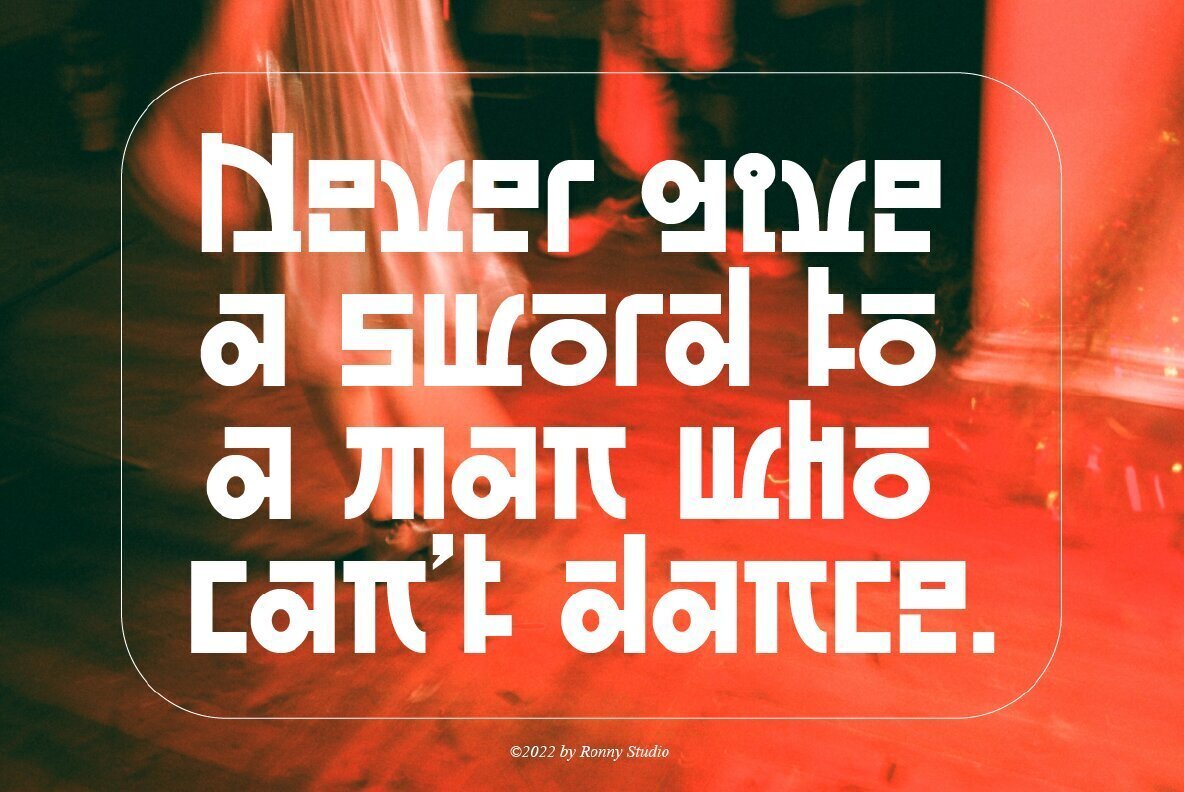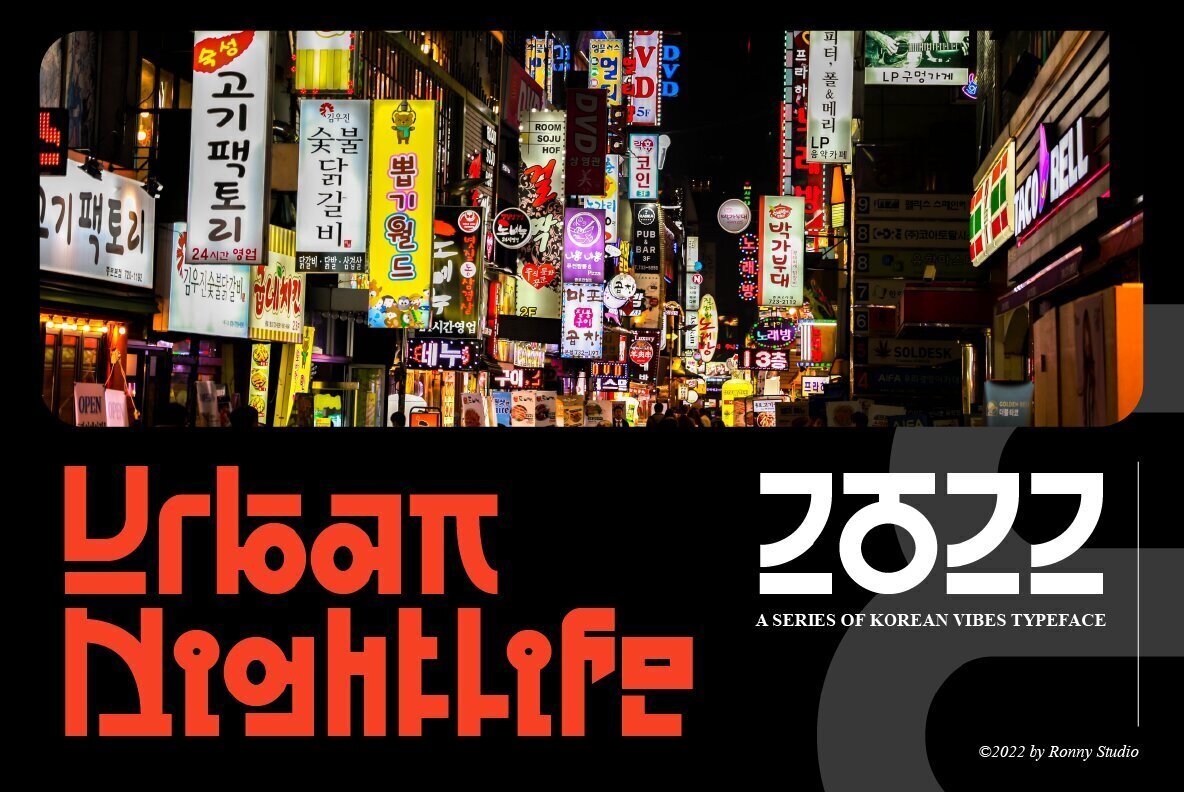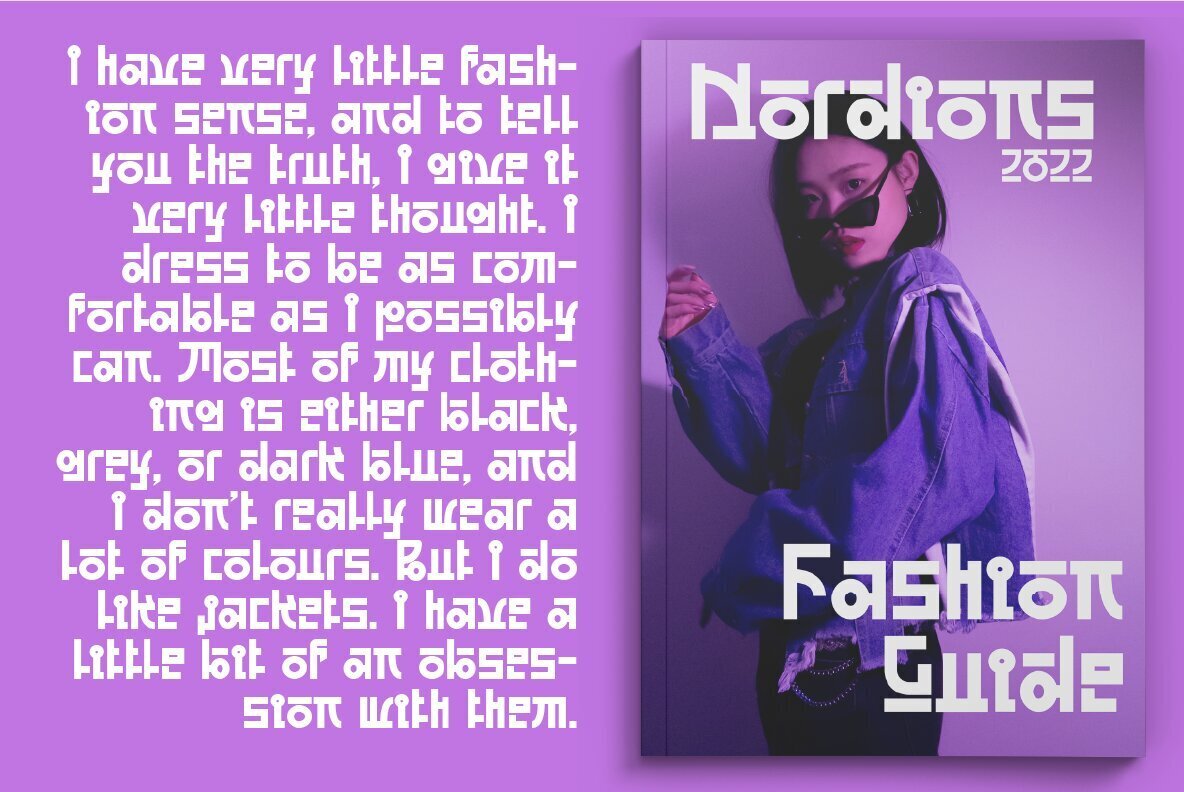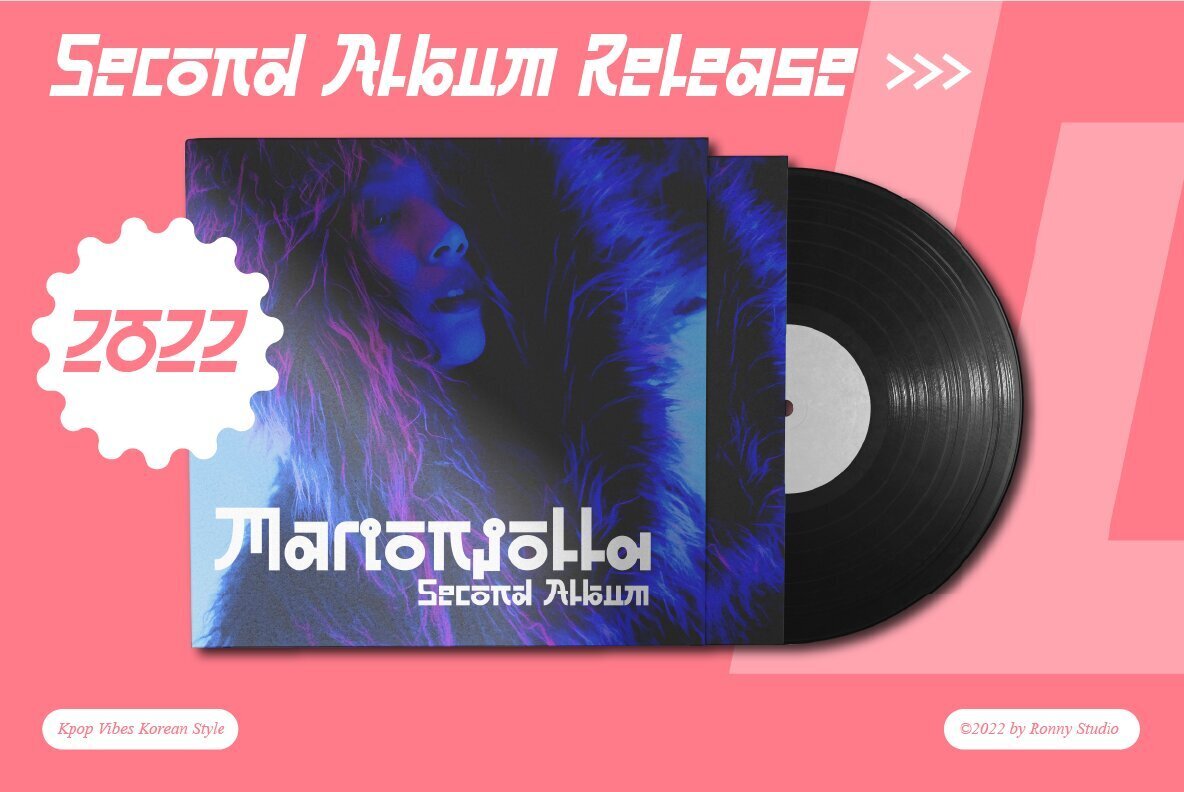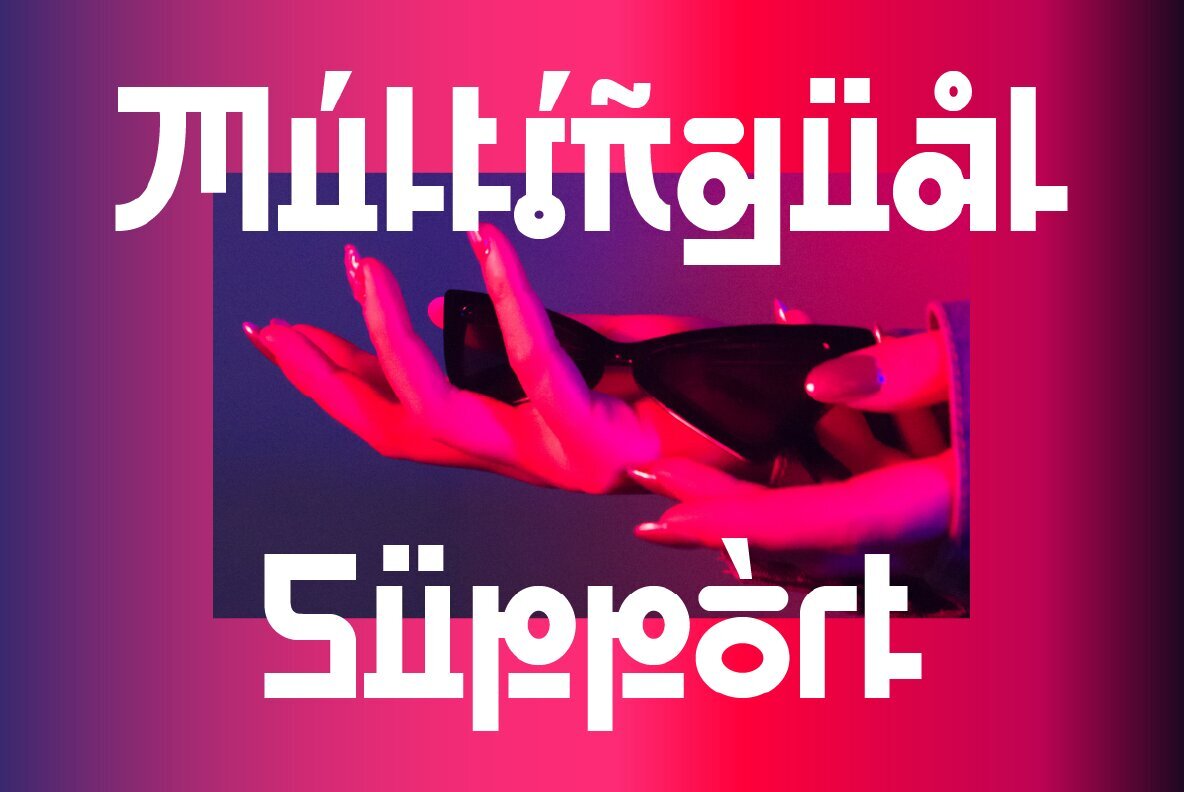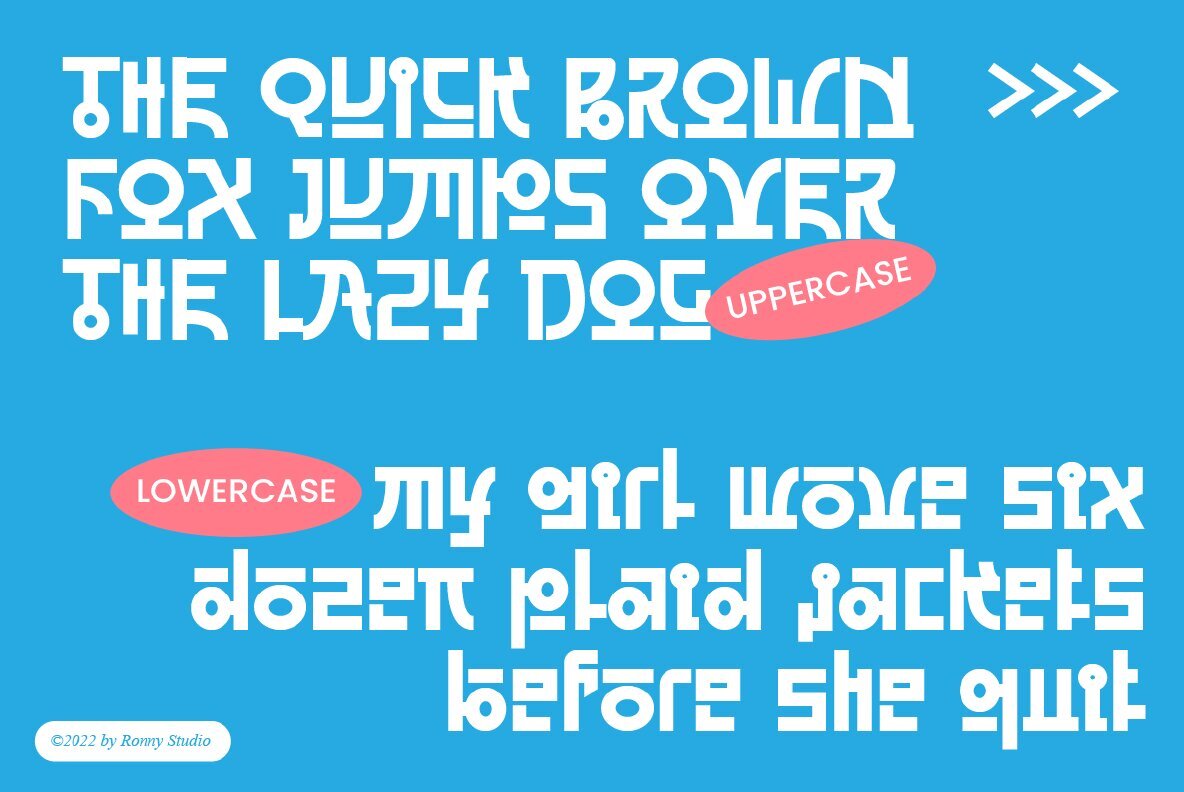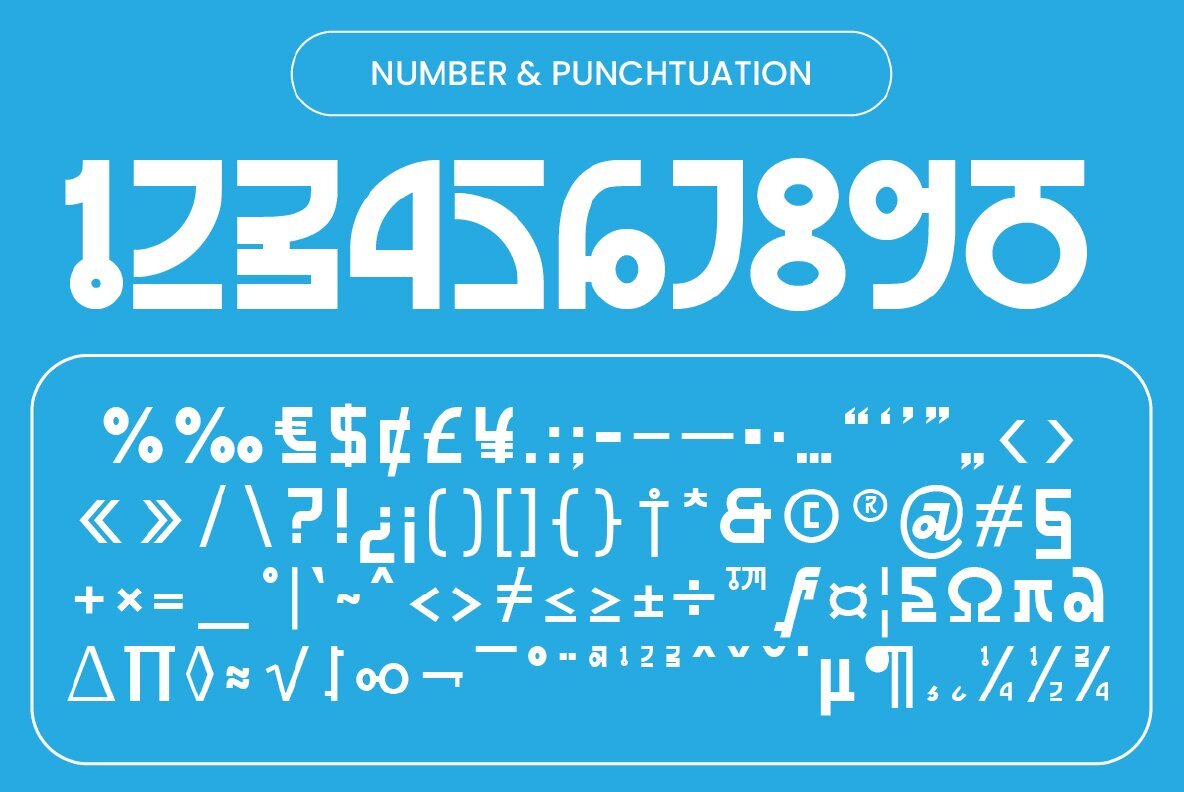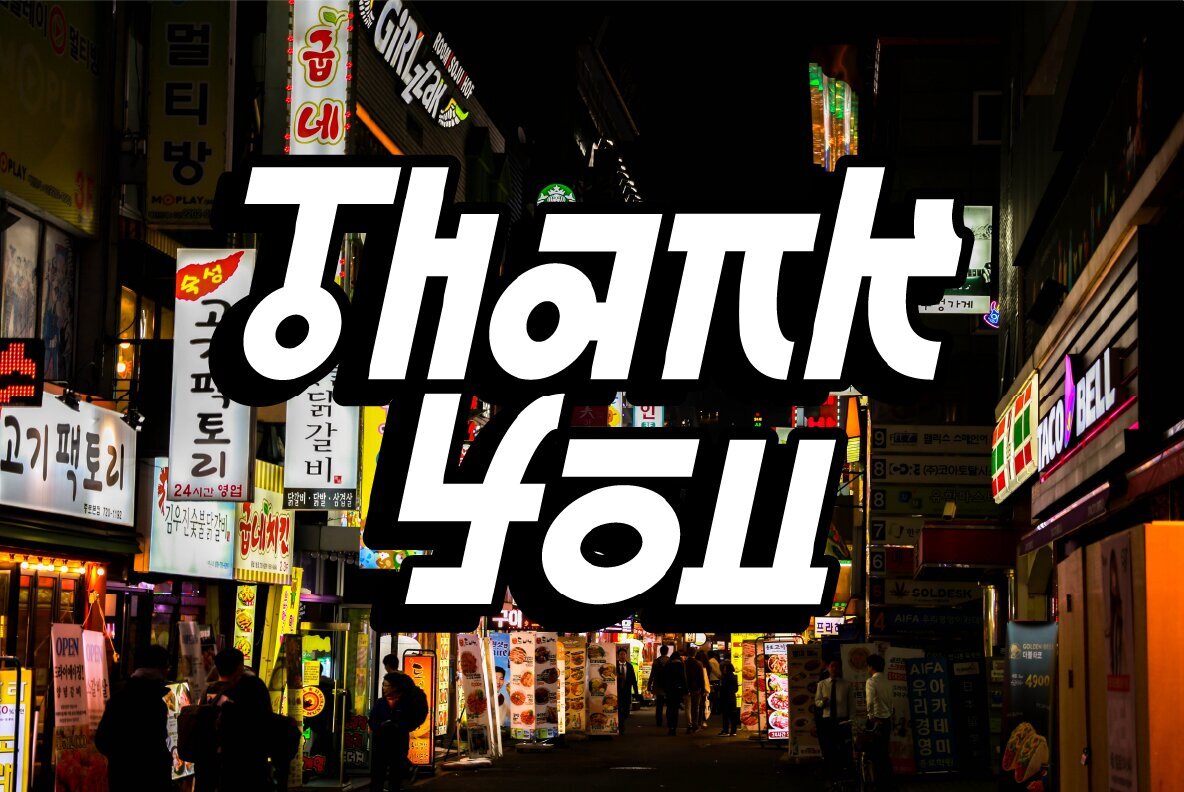
Kpop Vibes Font
Kpop Vibes Regular
Kpop Vibes Italic
Inspired by the emerging Korean culture that grabbing the worldwide actuation in so many realms of the industry. To bridge the vibes and to make it easier to consume, we found the gap to fill with simple things in life that are useful for it, and yes, it's a new day it's a new font.
So without any further ado, please welcome Kpop Vibes. series of Korean vibes typefaces. It's a sans-serif font with bold and strong vibes to catch up with today's graphic design trends.
- Uppercase
- Lowercase
- Numbers & Punctuation
- Alternate Style